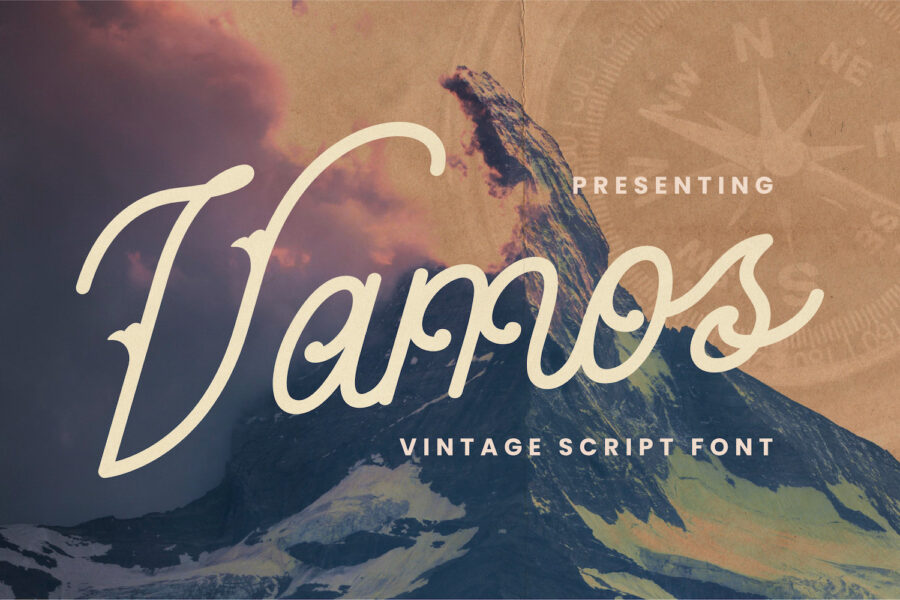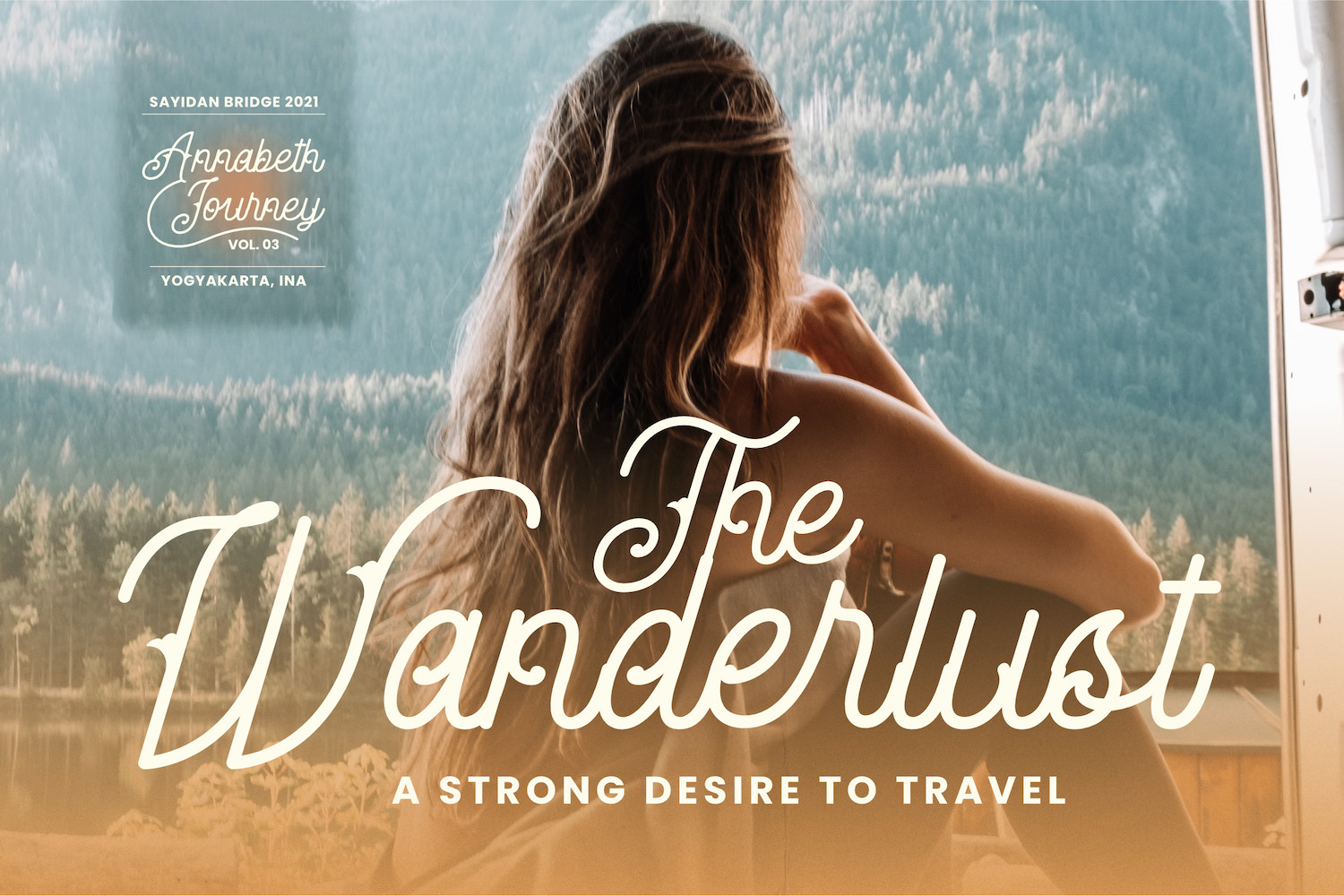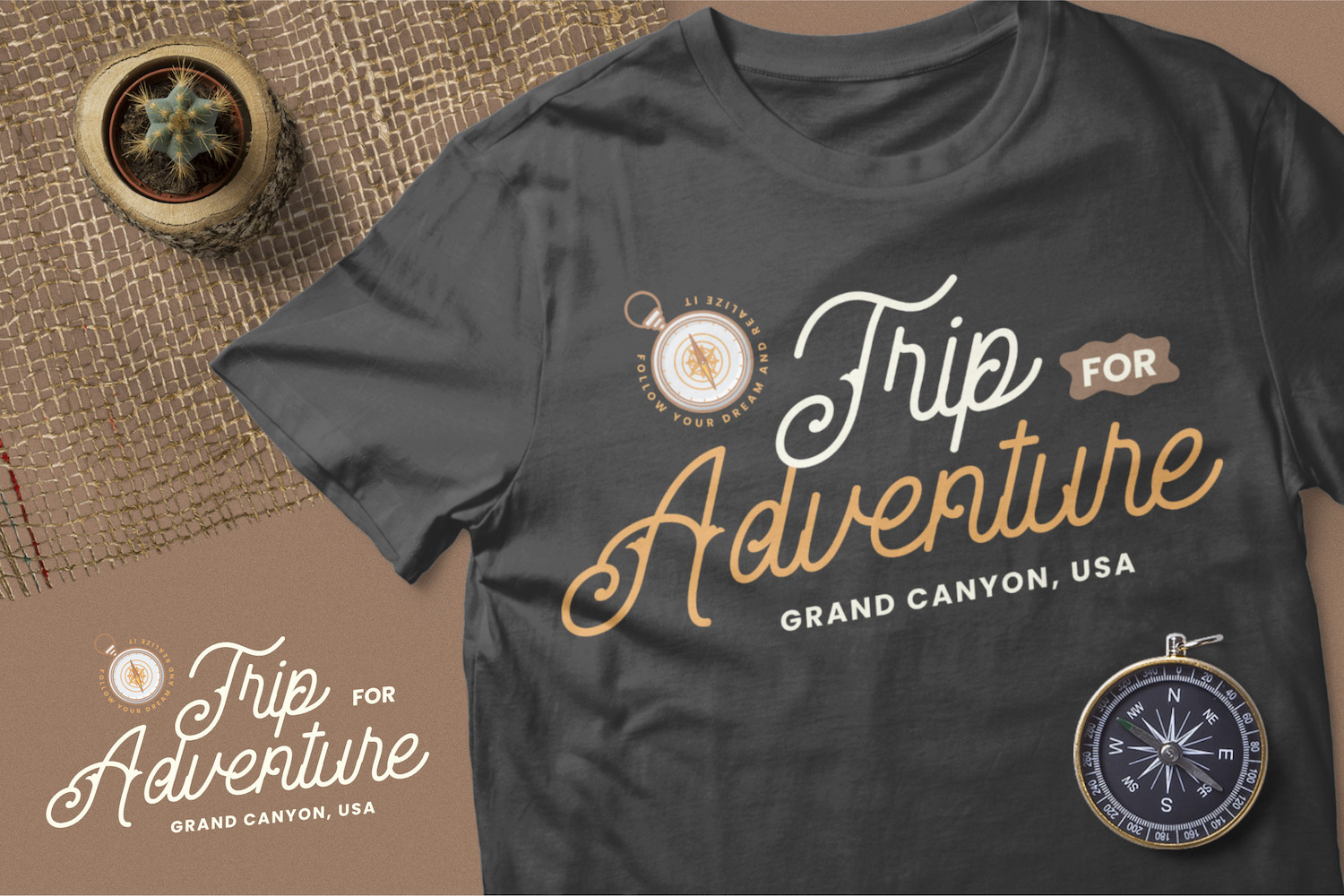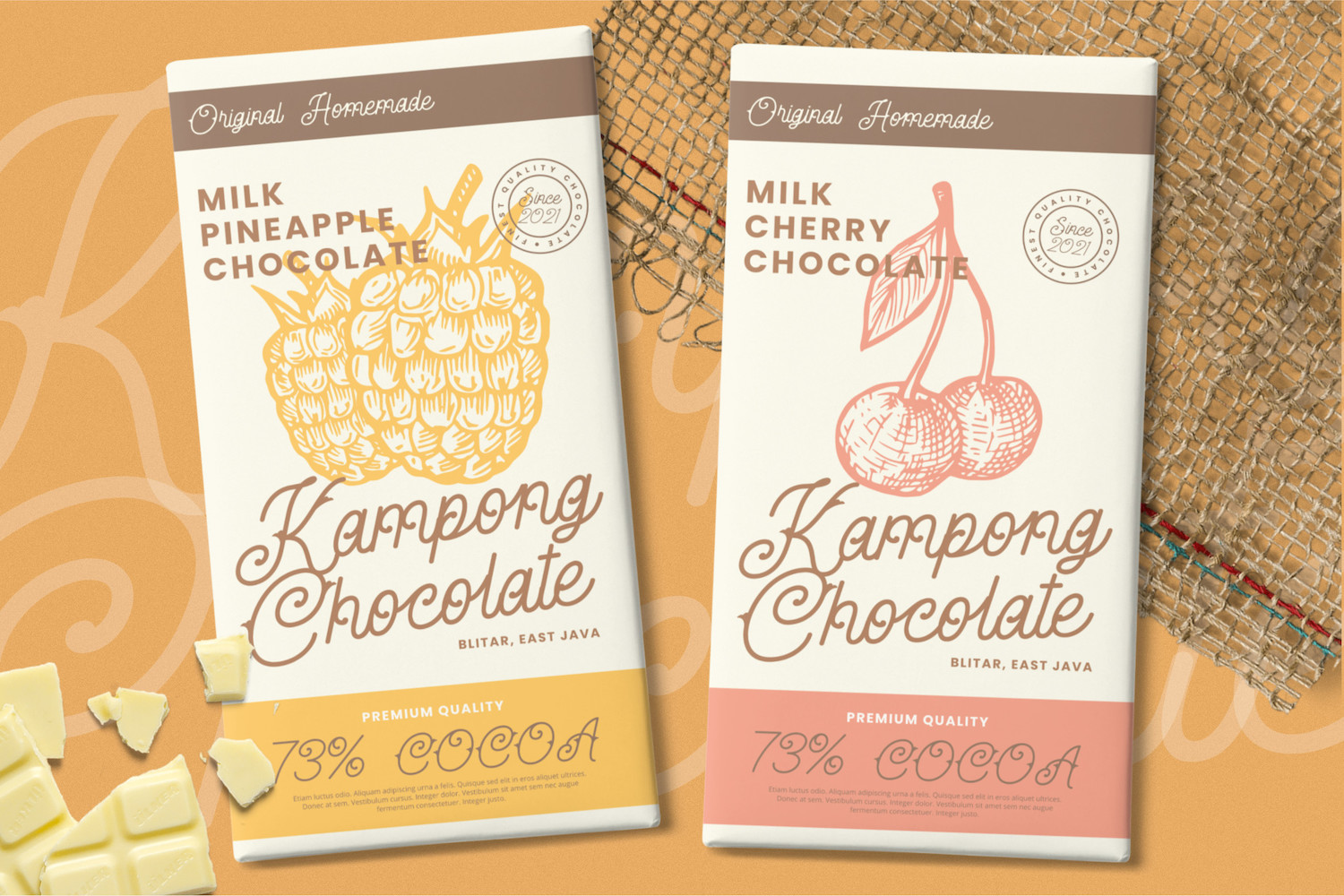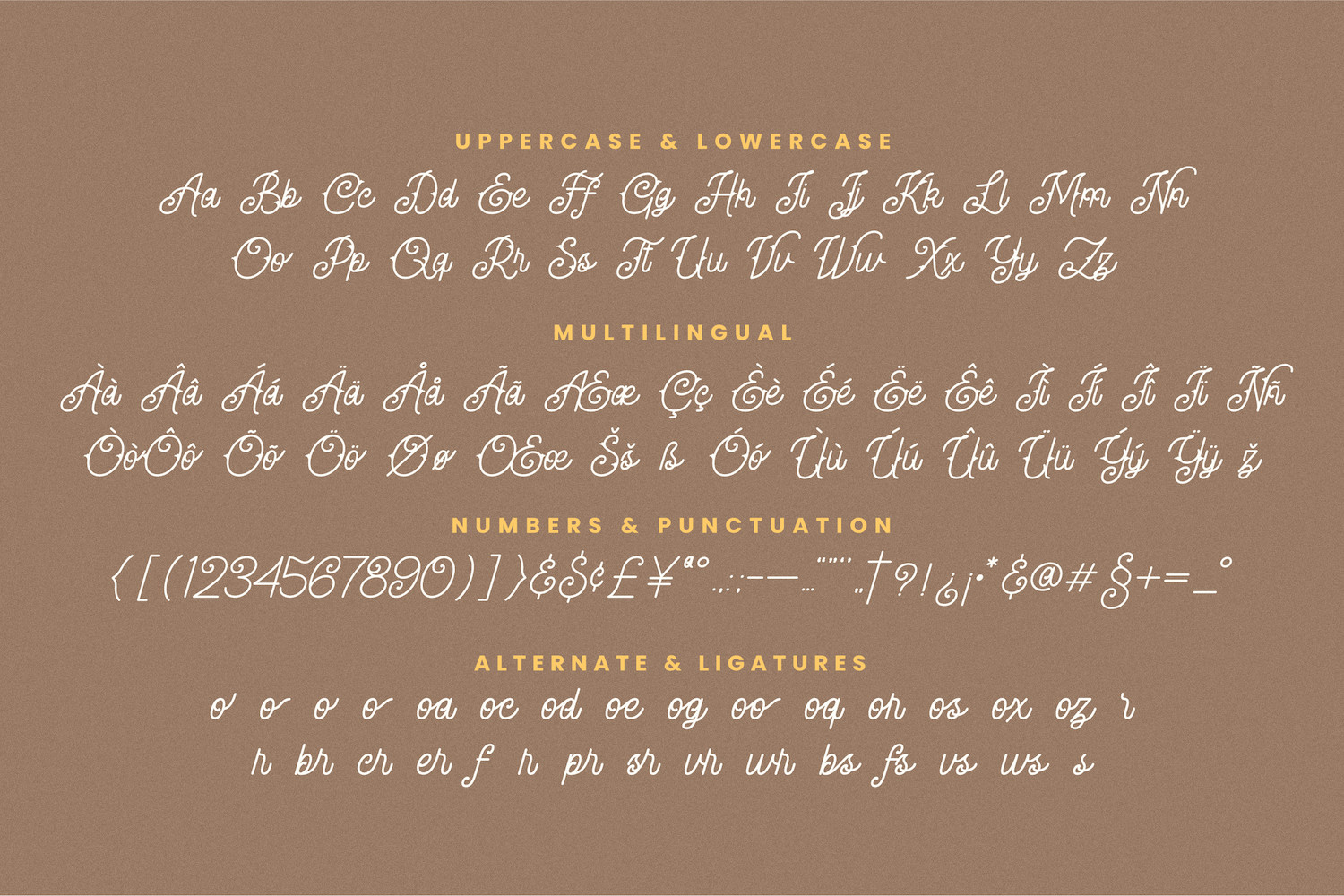
Vamos
Vamos is a vintage script font inspired by the golden era of travel and adventure. With its elegant swashes, flowing ligatures, and subtle handcrafted texture, Vamos delivers a nostalgic and sophisticated charm to your typography. Perfect for evoking timeless elegance, this font brings a sense of storytelling and wanderlust, ideal for travel branding, logos, and packaging.
Vamos supports multilingual characters and includes a wide variety of alternates and ligatures for dynamic letter combinations. Whether you’re creating a retro-themed design, a stylish apparel graphic, or artisan product label, Vamos provides the versatility and character to make your message stand out beautifully.